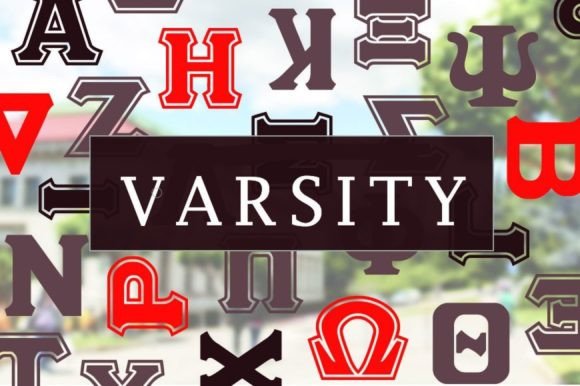
If you're looking for the best font for mini LED displays, look no further than Varsity Font. Created by Phelan.Riessen, this cool Greek serif font is designed in a classic collegiate style that will elevate your design game. Whether you're designing T-shirts, flyers, or other collegiate graphic design schwag, Varsity Font is the perfect choice.
One of the best things about Varsity Font is its versatility. It's not just for fraternities - it's also perfect for sororities and anyone who wants to add a touch of classic style to their design projects. Type lowercase for solid style Greek lettering and uppercase for outline style Greek lettering. This makes it easy to create the perfect look for your project.
It's important to note that Varsity Font is strictly made for Greek collegiate, fraternity, and sorority use and does not contain lowercase Greek letters. This means that it's perfect for anyone who wants to create a classic, collegiate look without having to worry about using the wrong letters.
In summary, Varsity Font is the perfect choice for anyone who wants to add a touch of classic style to their design projects. With its cool Greek serif font in a collegiate style lettering, this font is sure to make your designs stand out from the crowd. So why wait? Download Varsity Font today and take your designs to the next level!